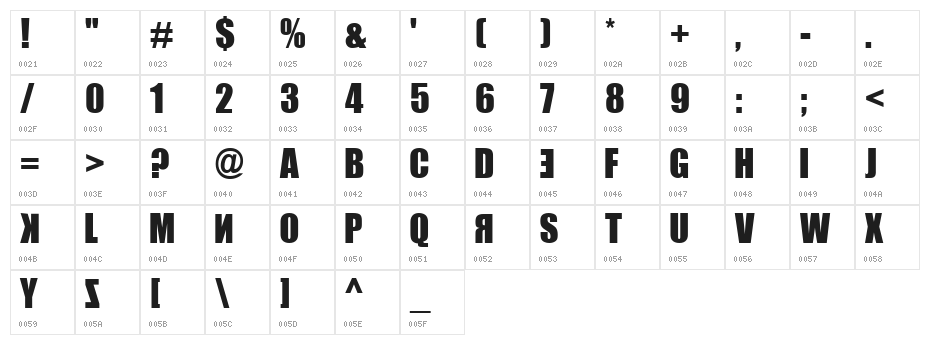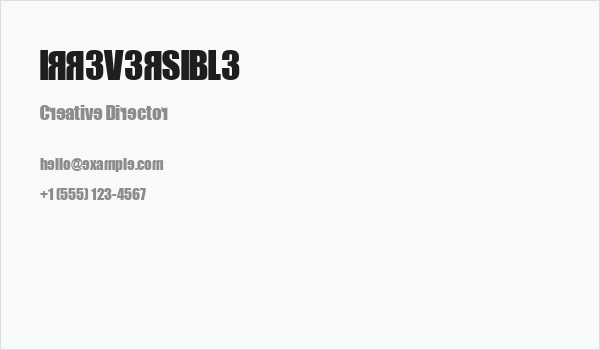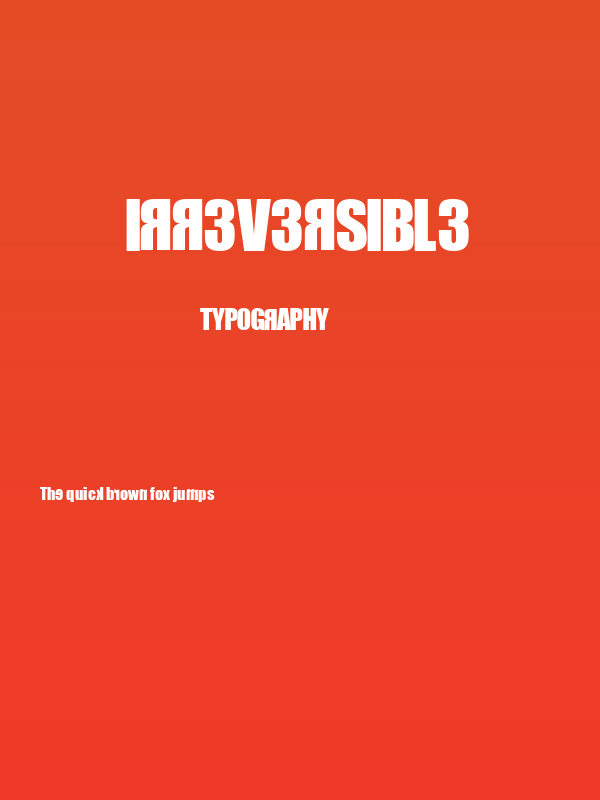
IRR3V3RSIBL3 Font
IRR3V3RSIBL3 Description
This bold, sans-serif font features a strong and impactful design, characterized by thick strokes and a commanding presence. The uppercase and lowercase letters maintain a consistent width, contributing to a uniform appearance. The numbers and special characters are equally robust, ensuring readability and emphasis. The font's boldness makes it ideal for attention-grabbing headlines and titles. Its clean lines and lack of serifs give it a modern and professional look, suitable for various design applications.
| Proposed Projects | Ideal for posters, banners, headlines, and branding materials where a strong visual impact is needed. |